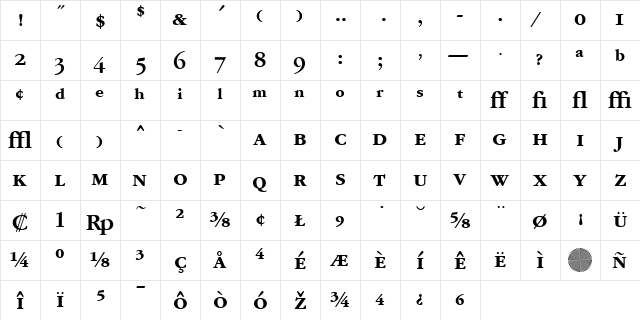
GarryMondrianExpt5 SBldSH Font Preview
GarryMondrianExpt5 SBldSH
Design Context for GarryMondrianExpt5 Typeface
GarryMondrianExpt5 takes a measured approach to typography — its balanced proportions and neutral character make it a reliable workhorse for both digital and print work.